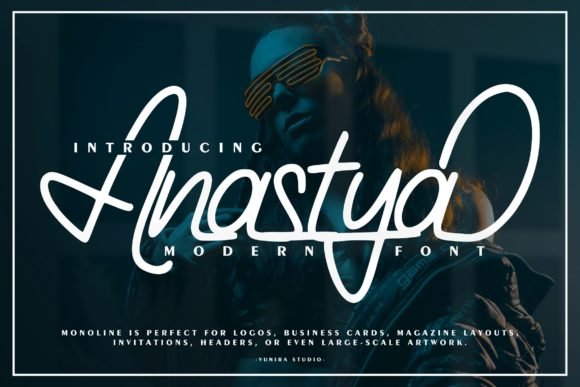
Discover the Timeless Charm of Anastya Font
There’s nothing quite like the thrill of stumbling upon a design element that sets your project apart. For many creatives, it’s that one elusive font that makes their work truly unforgettable. Imagine finding a handwritten font that effortlessly weaves a story, adds a touch of personality, and elevates your design to new heights. That’s exactly what you get with the Anastya Font.
This beautifully crafted font is designed to bring a sense of authenticity and warmth to your designs. With its well-balanced and elegant feel, the Anastya Font is perfect for anyone looking to add a unique touch to their projects. Whether you’re working on a branding campaign, a wedding invitation, or a blog post, this font is sure to make your design stand out from the crowd.
Anastya Font Key Features
- Font Family: Anastya, Anastya Script
- Unique Characteristics: Elegant, cursive script with a vintage flair and intricate details
Anastya Font Review
As a designer, I’ve had the chance to work with Anastya Font, and I must say, it’s a unique and captivating typeface. ✨ Here are some of its standout features:
- ✨ Elegant and feminine design that’s perfect for fashion and beauty brands
- ✨ Wide range of languages supported, making it a great option for global brands
- ✨ Great for both print and digital applications
However, like any font, Anastya has its limitations:
- ⚠️ Some characters may appear too delicate or thin, making them hard to read at smaller sizes
- ⚠️ Limited contrast between light and dark versions, which may not be suitable for certain design styles
- ⚠️ Not ideal for use in headings or titles, where a bolder font is often preferred
Overall, Anastya Font is a beautiful and versatile typeface that can add a touch of elegance to any design. While it may have some limitations, it’s definitely worth considering for projects where a feminine and refined aesthetic is desired.
Tips for Getting the Most Out of Anastya Font
Use Anastya Font for:
- Creative projects that require a unique and elegant touch.
- Wedding invitations, stationery, and other formal events.
- Branding and marketing materials that require a sophisticated look.
Remember to adjust the font size and style to ensure readability and balance with other design elements.
Exploring Creative Projects with Anastya Font
Project 1: Whimsical Fairy Tale Book Cover
A beautifully designed book cover for a children’s fairy tale, incorporating the elegant and whimsical Anastya Font.